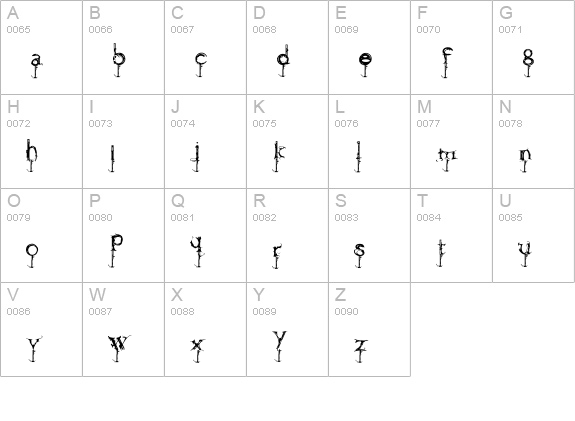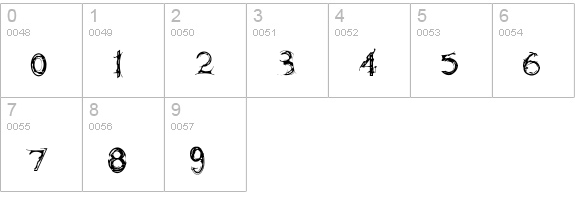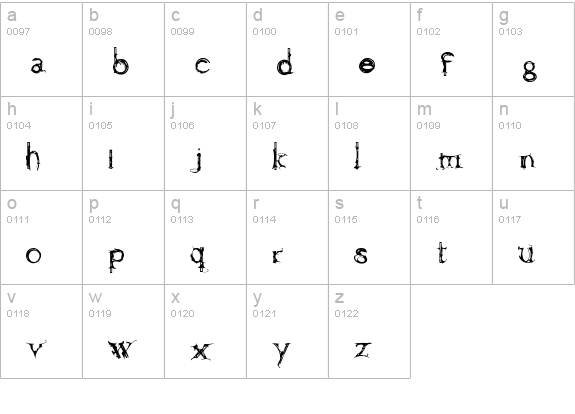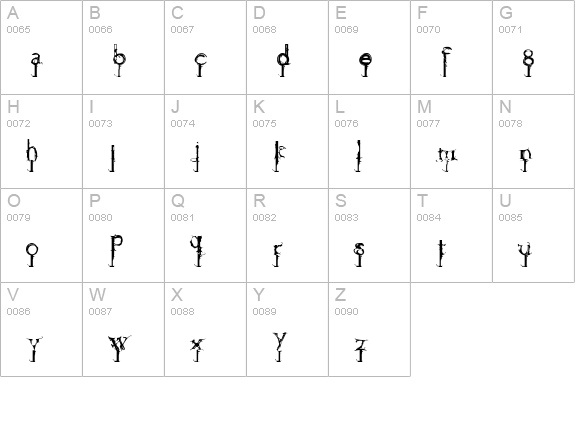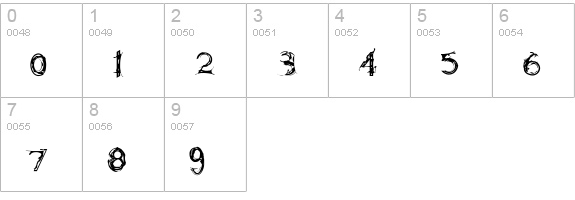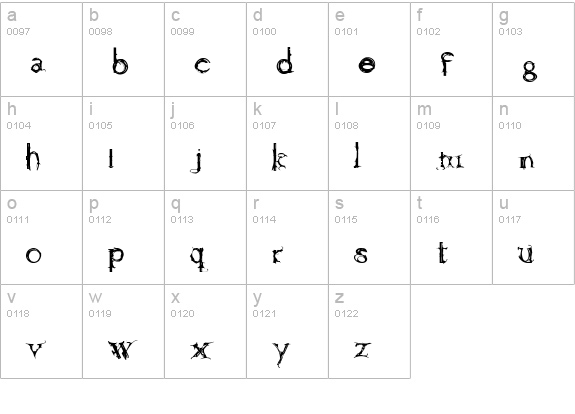
Finial-RegularA Font Details
Finial-RegularA font is a beautifully crafted typeface that exudes elegance and sophistication. With its refined curves and stylish letterforms, this font is perfect for adding a touch of class to any design project. Whether you're creating invitations, branding materials, or editorial content, Finial-RegularA font will surely make a lasting impression. What sets Finial-RegularA font apart is not just its timeless design, but also the fact that it is available for free download at FontsMarket.com. This means that you can easily access this high-quality font without any cost, making it a valuable addition to your font collection. Don't miss out on the opportunity to elevate your designs with the exquisite Finial-RegularA font – download it today and unleash your creativity!